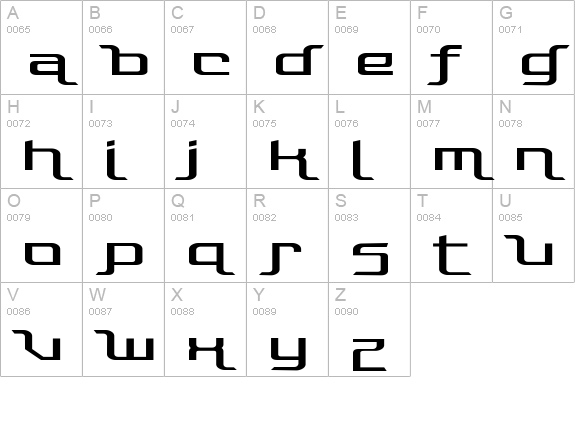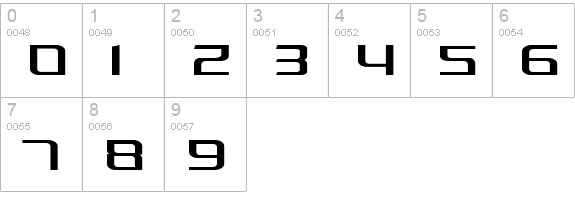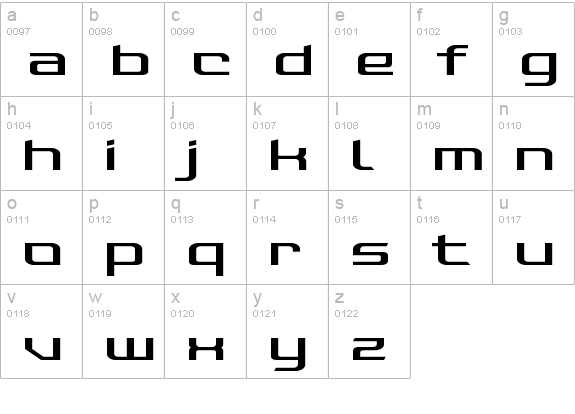
Photonica Straight Font Details
Photonica Straight is a modern and sleek font that exudes sophistication and professionalism. With its clean lines and precise angles, this font is perfect for a wide range of design projects, from corporate branding to editorial layouts. Its simplicity makes it versatile and easy to read, while still maintaining a unique and contemporary feel. What sets Photonica Straight apart is its availability for free download at FontsMarket.com. Yes, you heard it right – this amazing font can be easily accessed and utilized without any cost. This makes it an ideal choice for individuals and businesses who are looking to enhance their creative endeavors without breaking the bank. Whether you are a graphic designer in need of a fresh and stylish typeface, a blogger searching for a clean and modern font for your website, or a student working on a presentation or project, Photonica Straight is the perfect solution. Its sleek and minimalist design will elevate your work and give it a professional edge. With Photonica Straight, you can confidently create eye-catching logos, captivating headlines, striking posters, and impactful social media graphics. Its versatility allows it to seamlessly adapt to various design styles and aesthetics, ensuring that your creative vision is brought to life with precision and flair. So why wait? Download Photonica Straight today from FontsMarket.com and enjoy the freedom of expressing your creativity without any constraints. Embrace the power of this incredible font and watch as your designs come alive with elegance and sophistication.